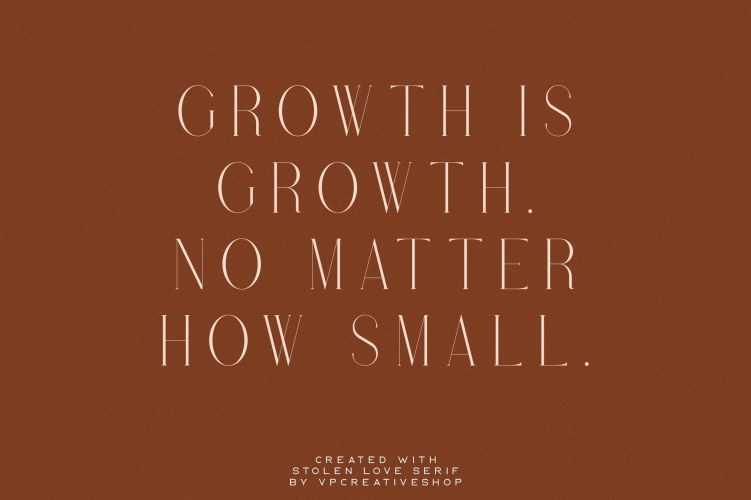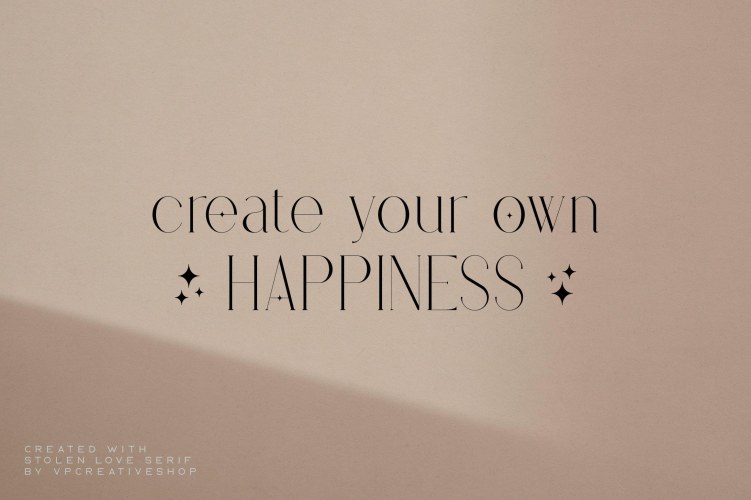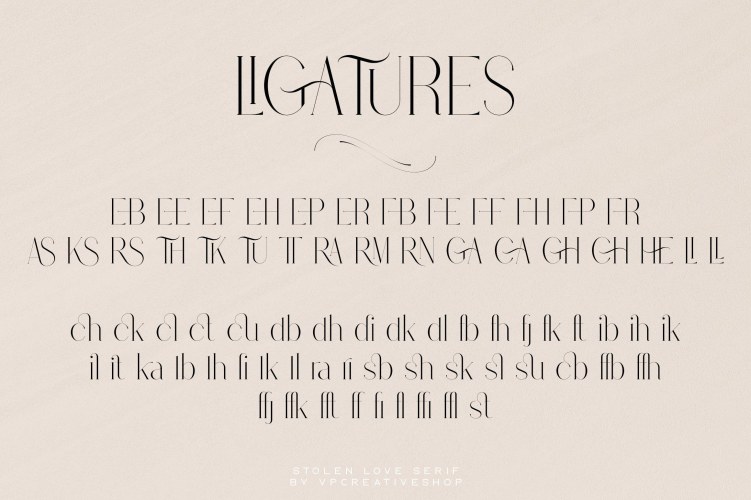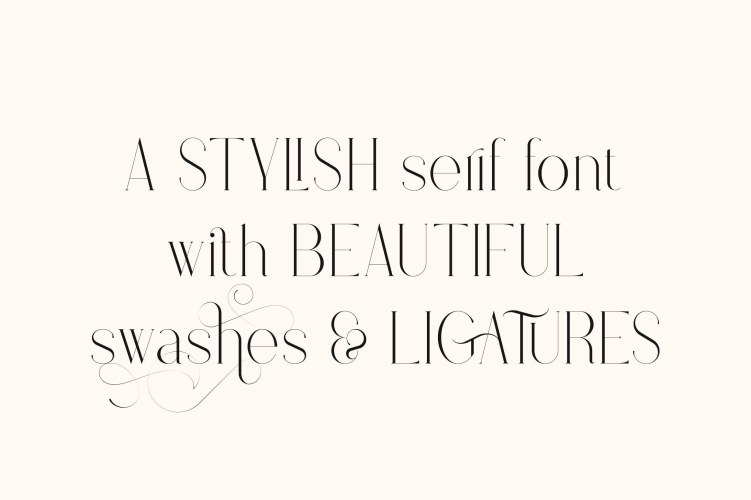
Stolen Love Font Family
Stolen Love is a stylish and creative typeface with 6 different fonts, alternate and ligature glyphs, 52 swashes in 3 different sizes, and 26 ornaments to make your typo…
Stolen Love is a stylish and creative typeface with 6 different fonts, alternate and ligature glyphs, 52 swashes in 3 different sizes, and 26 ornaments to make your typography unique!
Where Stolen Love Font Family works best
A design system from one file
With several weights, Stolen Love Font Family can carry headings, body text and captions, which keeps a product or a brand coherent.
Documentation and knowledge bases
Long technical pages need a family with a clear bold and a comfortable regular; Stolen Love Font Family covers both.
Client work with many formats
What kind of work does Stolen Love Font Family suit?
It sits in the Font Family group and reads as creative, font family, free, typeface. That makes it a candidate wherever those qualities help: headings, packaging, social graphics and brand work. Set it at the size you plan to use before deciding.